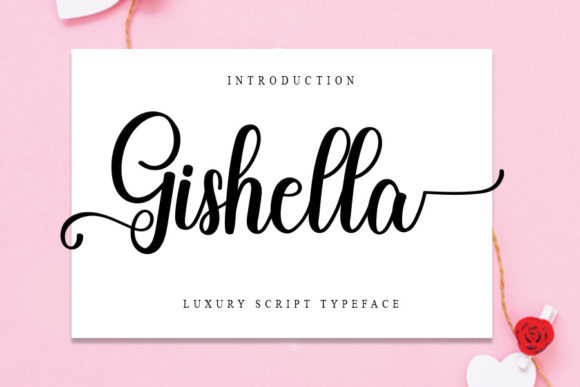
Introducing Gishella Font: A Bewitching Script for Your Hauntingly Creative Projects!
Step into a world of enchanting typography with Gishella Font, a flowing and graceful script that will cast a spell on your designs. This captivating font, conjured by the masterminds at FreshTypeINK, is the perfect companion for crafting hauntingly beautiful Halloween posters that are sure to send shivers down your spine.
Unleash the dark magic of Gishella's curves and flourishes, which dance across the page like whispers from beyond. Each letter is a delicate stroke of artistry, meticulously crafted to evoke a sense of mystery and intrigue. With Gishella as your font of choice, you can effortlessly conjure up spine-tingling invitations, ethereal wedding stationery, and social media posts that will leave your audience spellbound.
Embrace the allure of Gishella's bewitching charm and watch as your creative projects transform into captivating masterpieces. Whether you're a seasoned graphic designer or a novice seeking to delve into the realm of typography, Gishella is the perfect font to unleash your inner sorcerer.
Embark on a typographic journey with Gishella, and let your imagination run wild as you create hauntingly beautiful designs that will leave an everlasting impression. Embrace the magic of Gishella and witness the transformation of your creative visions into captivating realities.